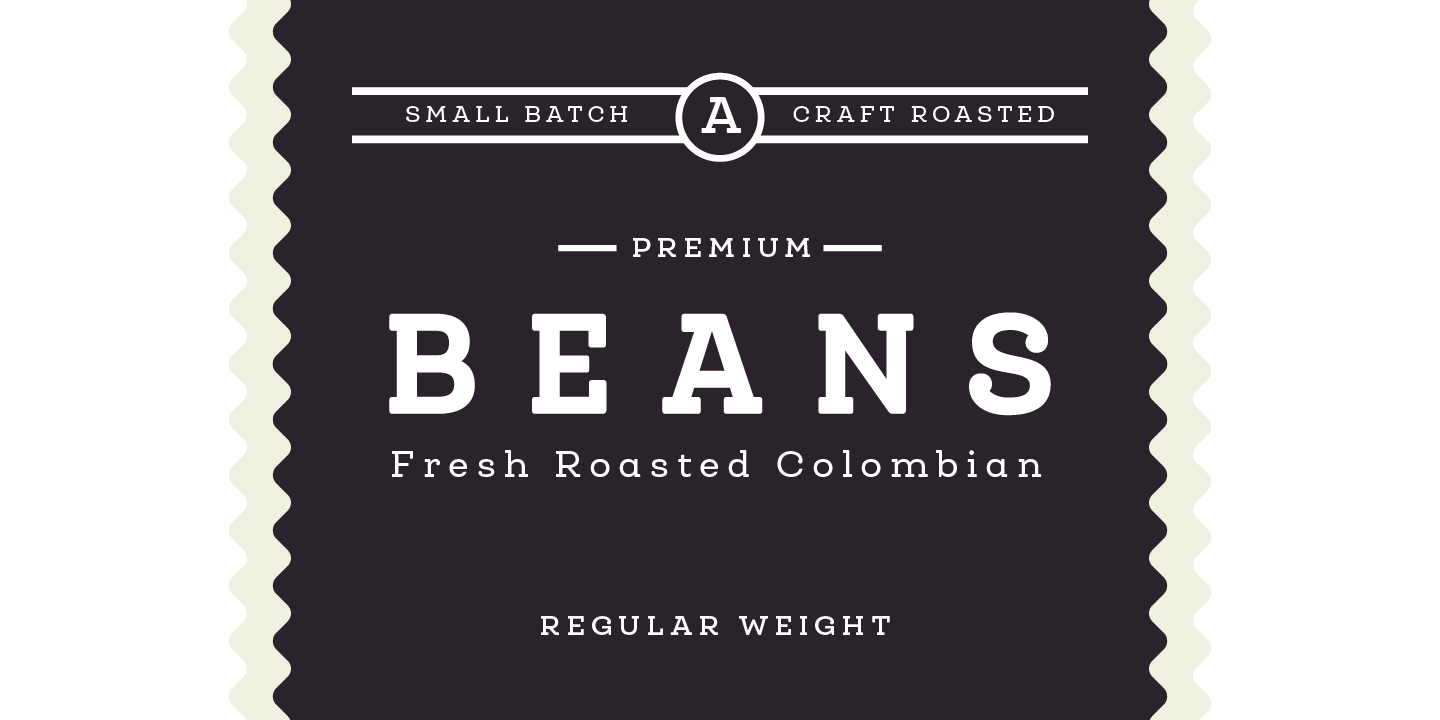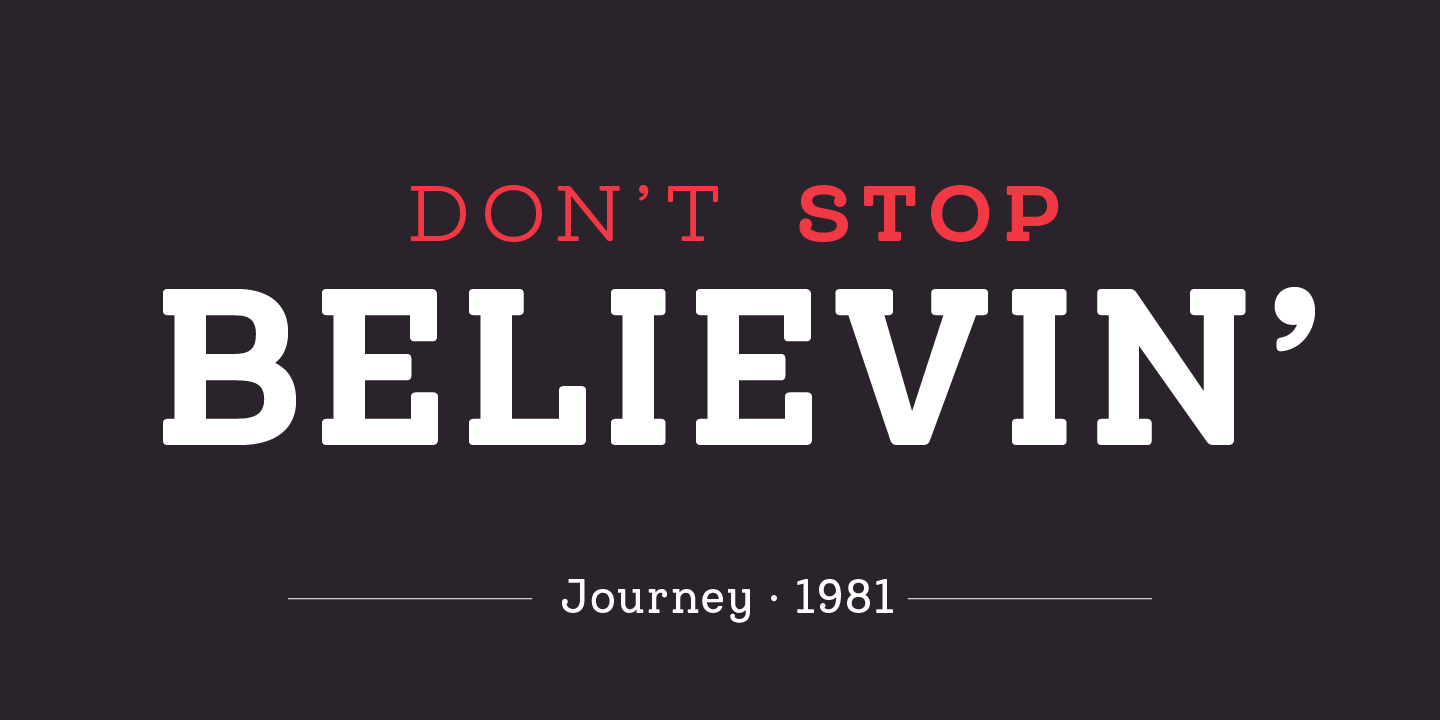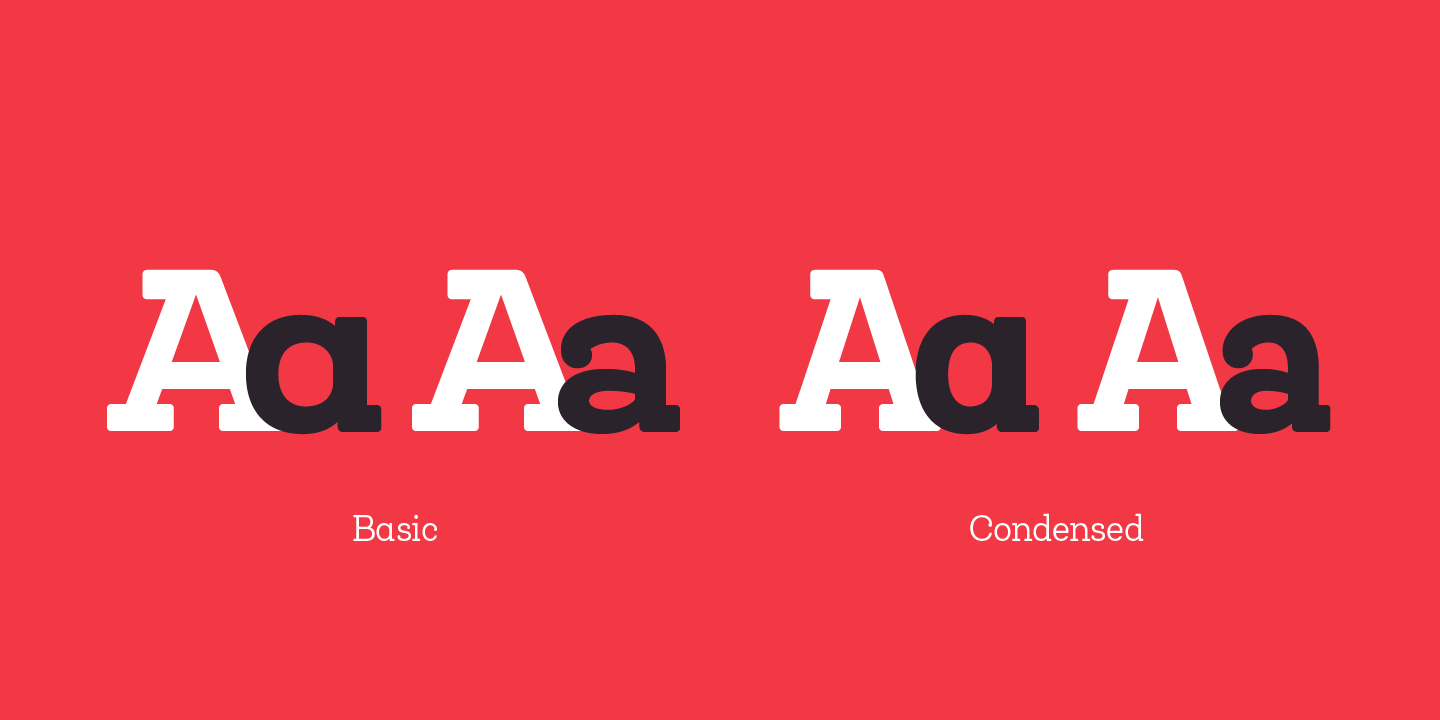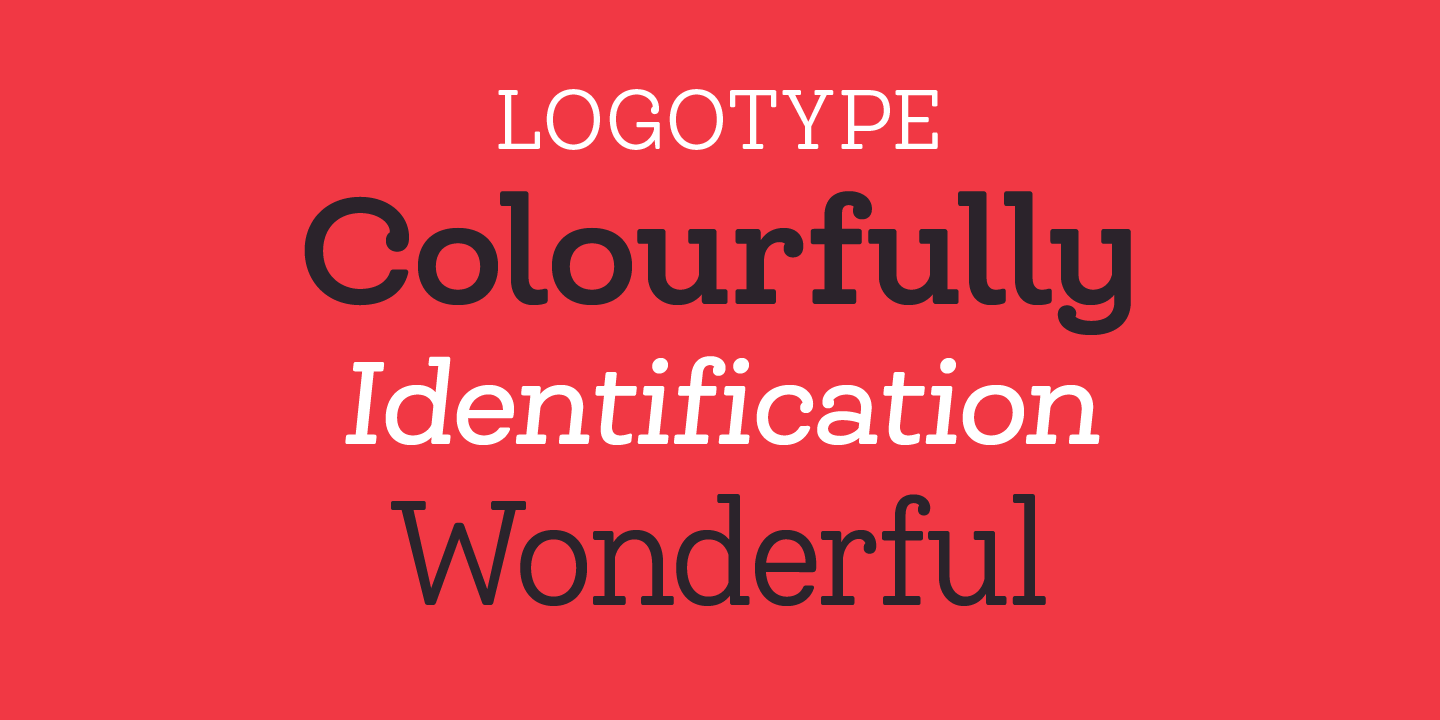
The font is inspired by Modern and Grotesk styles. The former is shown in some characteristic features such as teardrop terminals, which give the typeface an attractive unique look, making it an ideal choice for logotypes and labelling. The latter, with its rationality, makes Queulat Soft a stable and strong face for headings and subheadings.
The combination of styles can be clearly seen by comparing the Regular with the Alt version. The Regular version is more simple than the Alt one. Differently, the alternative version possesses more features of the Modern style, like teardrop terminals in ‘k’ and ‘v’.